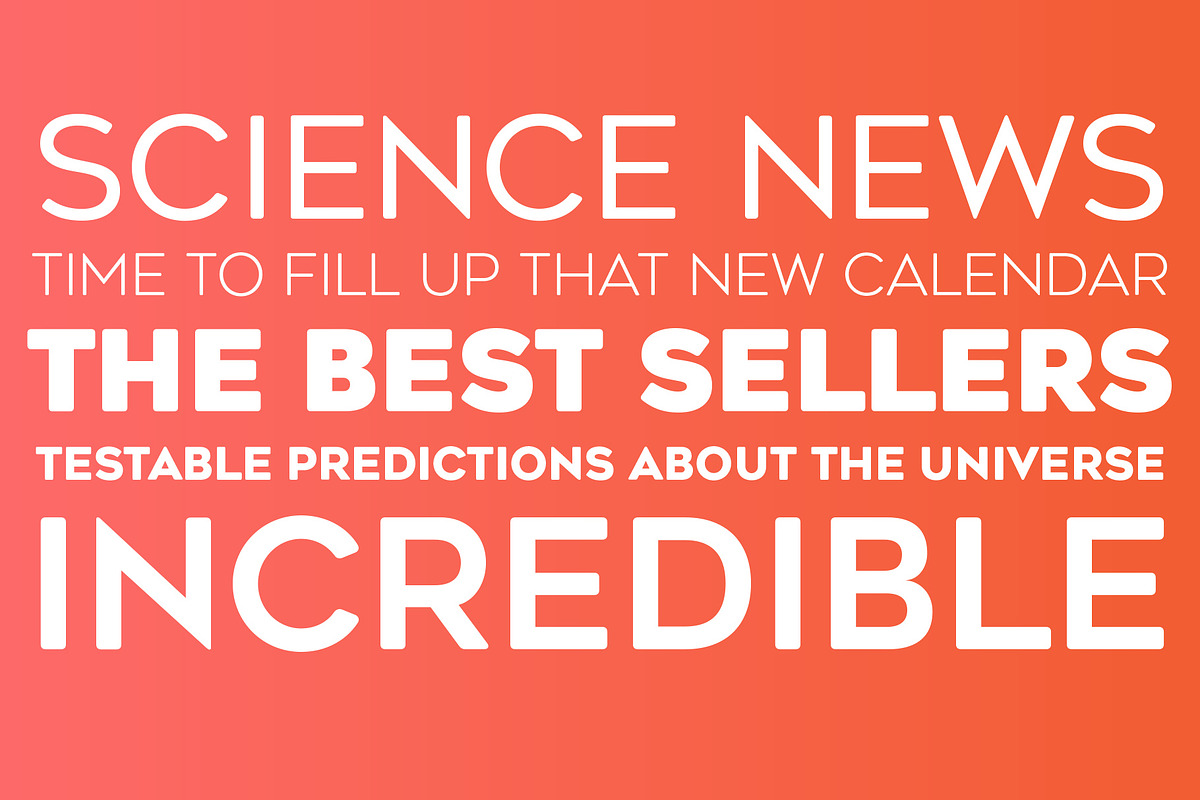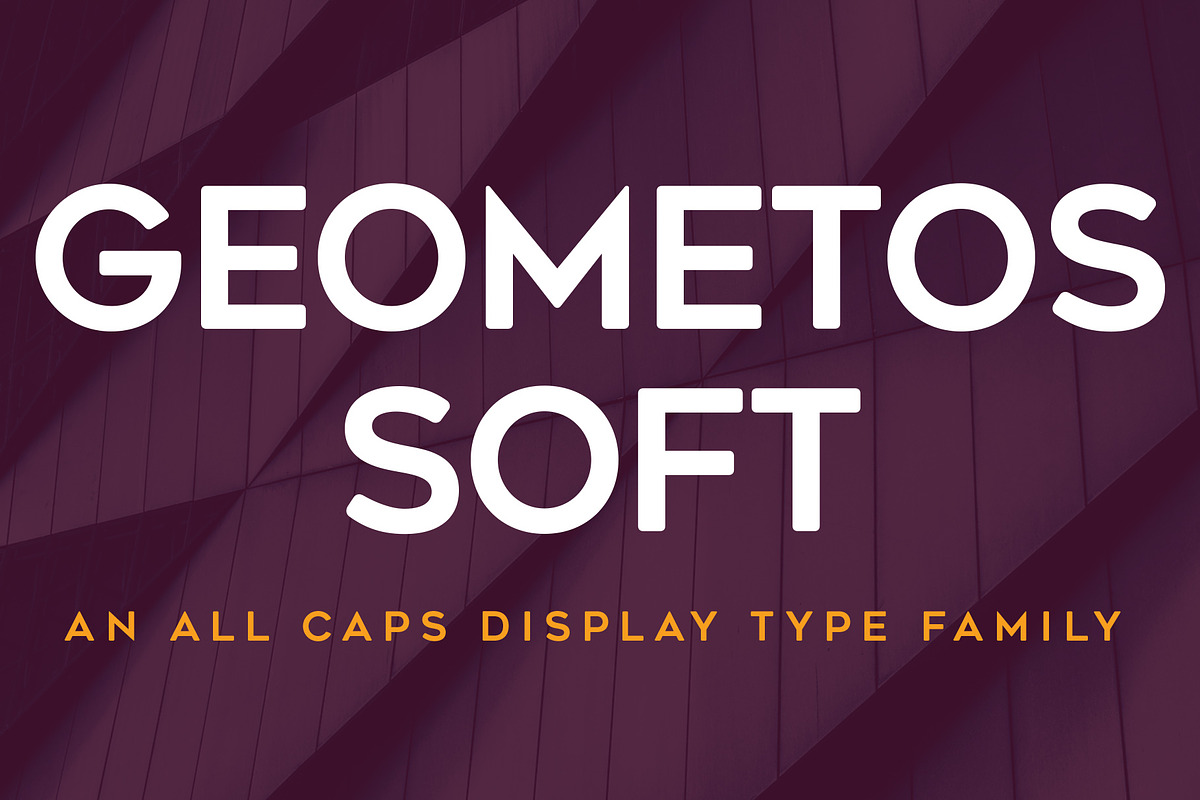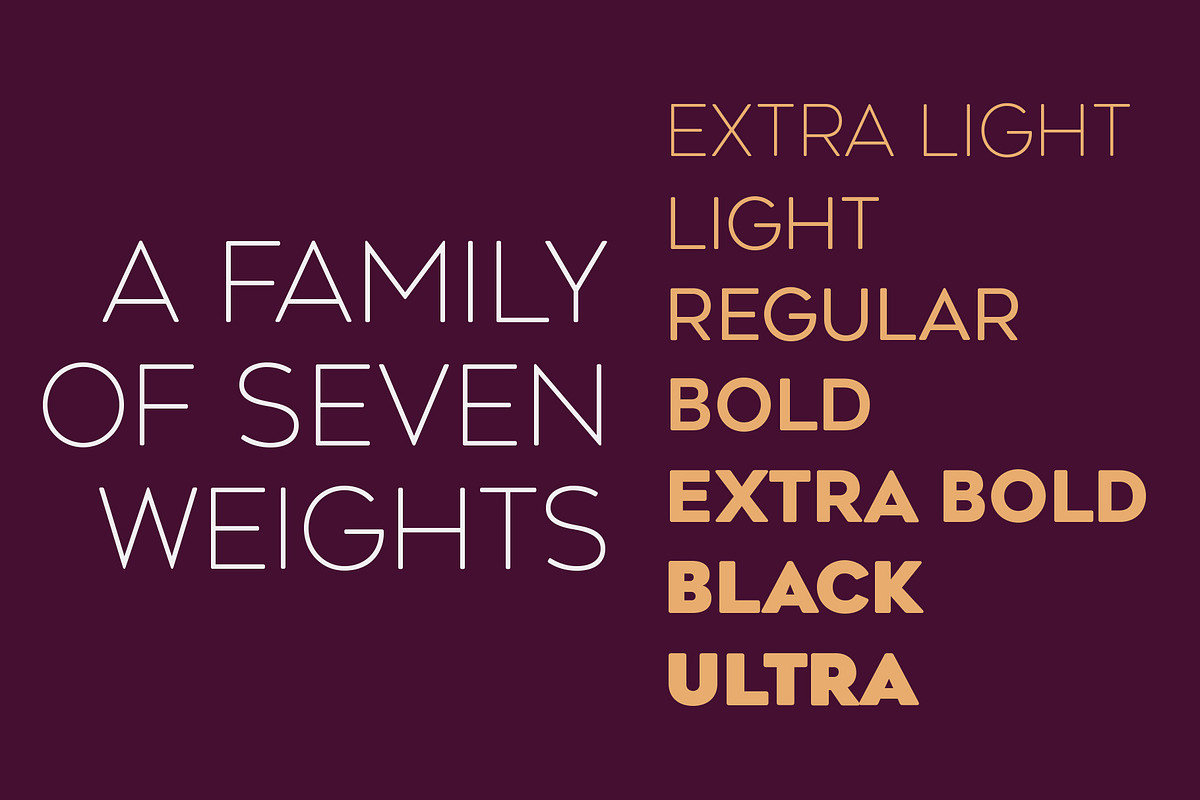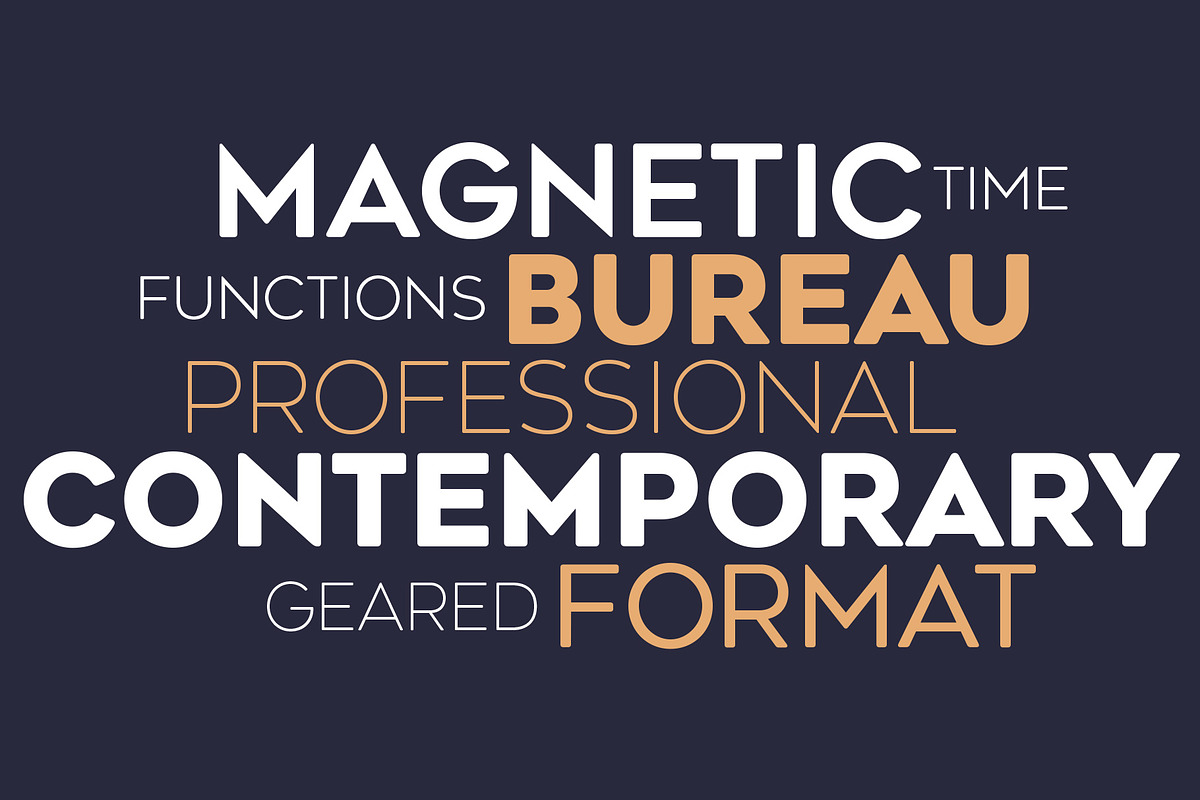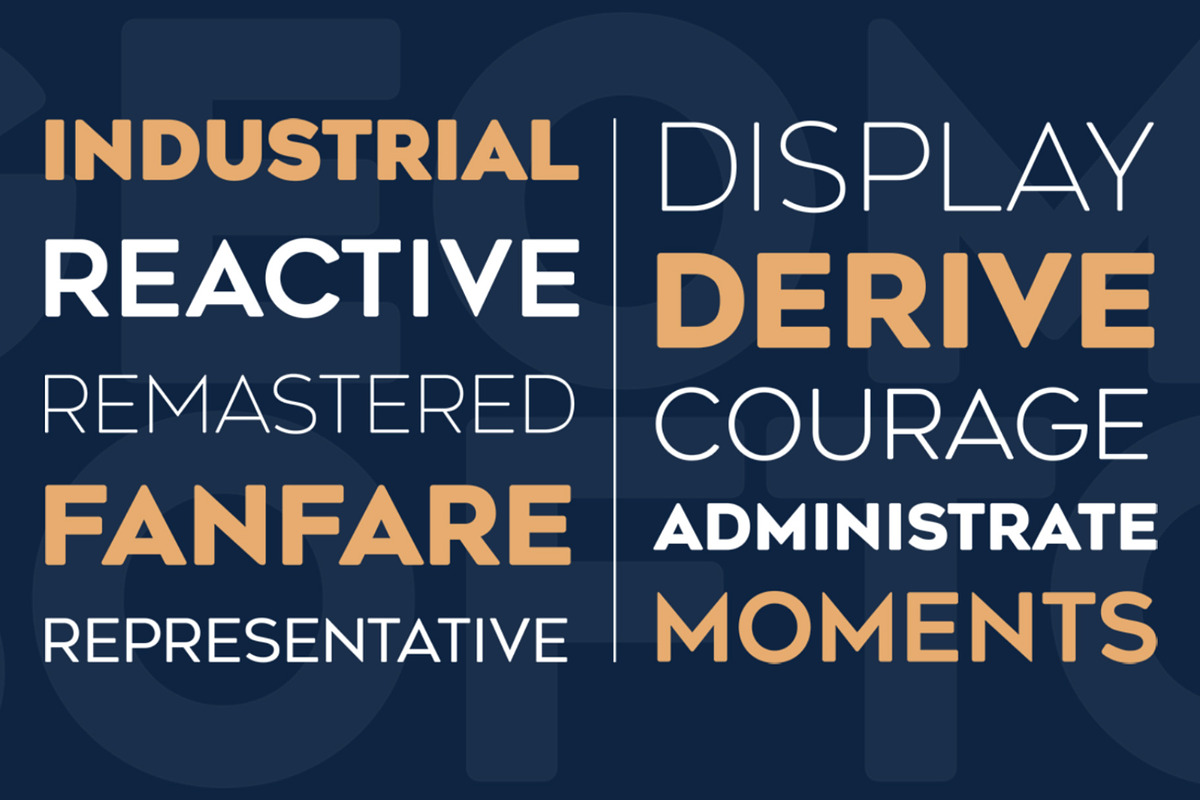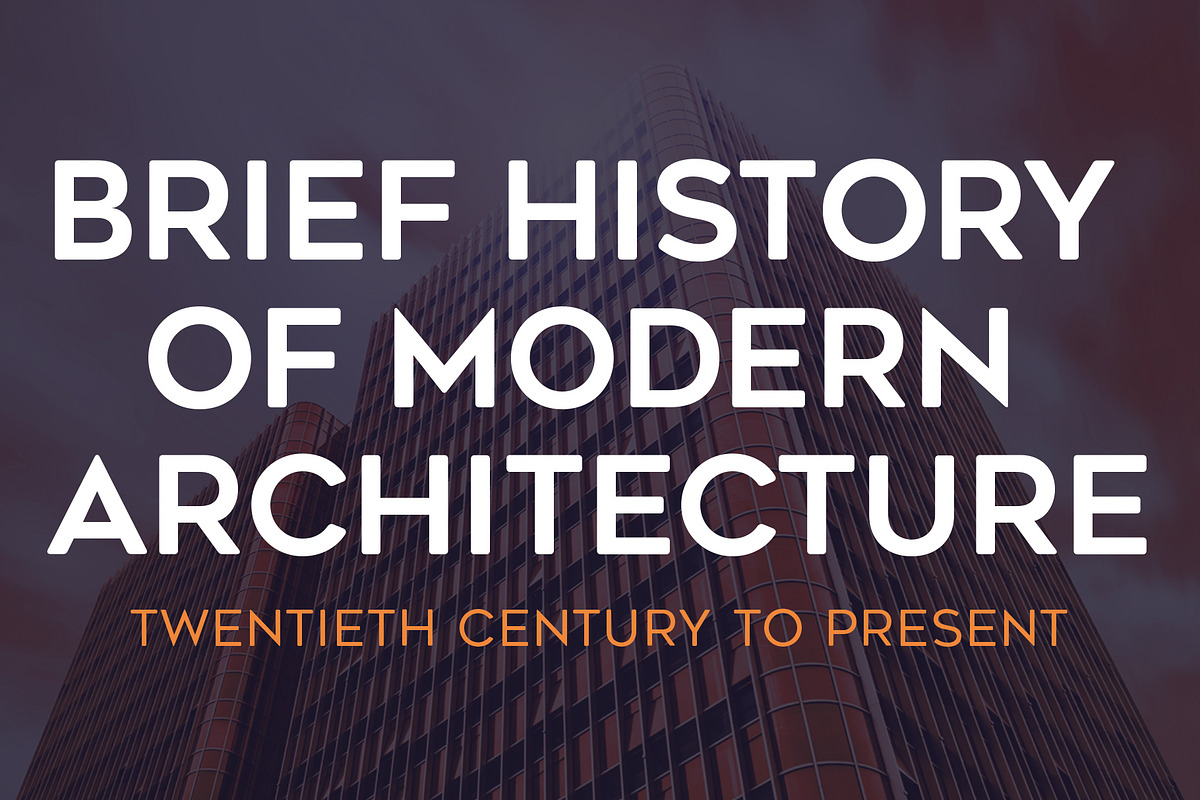
Geometos Soft is a geometric sans-serif display typeface family. It is a rounded version of the popluar font family Geometos Neue. An all caps family of seven weights, Geometos Soft is especially suitable for headlines, headings, branding, posters, packaging, titles and logos.